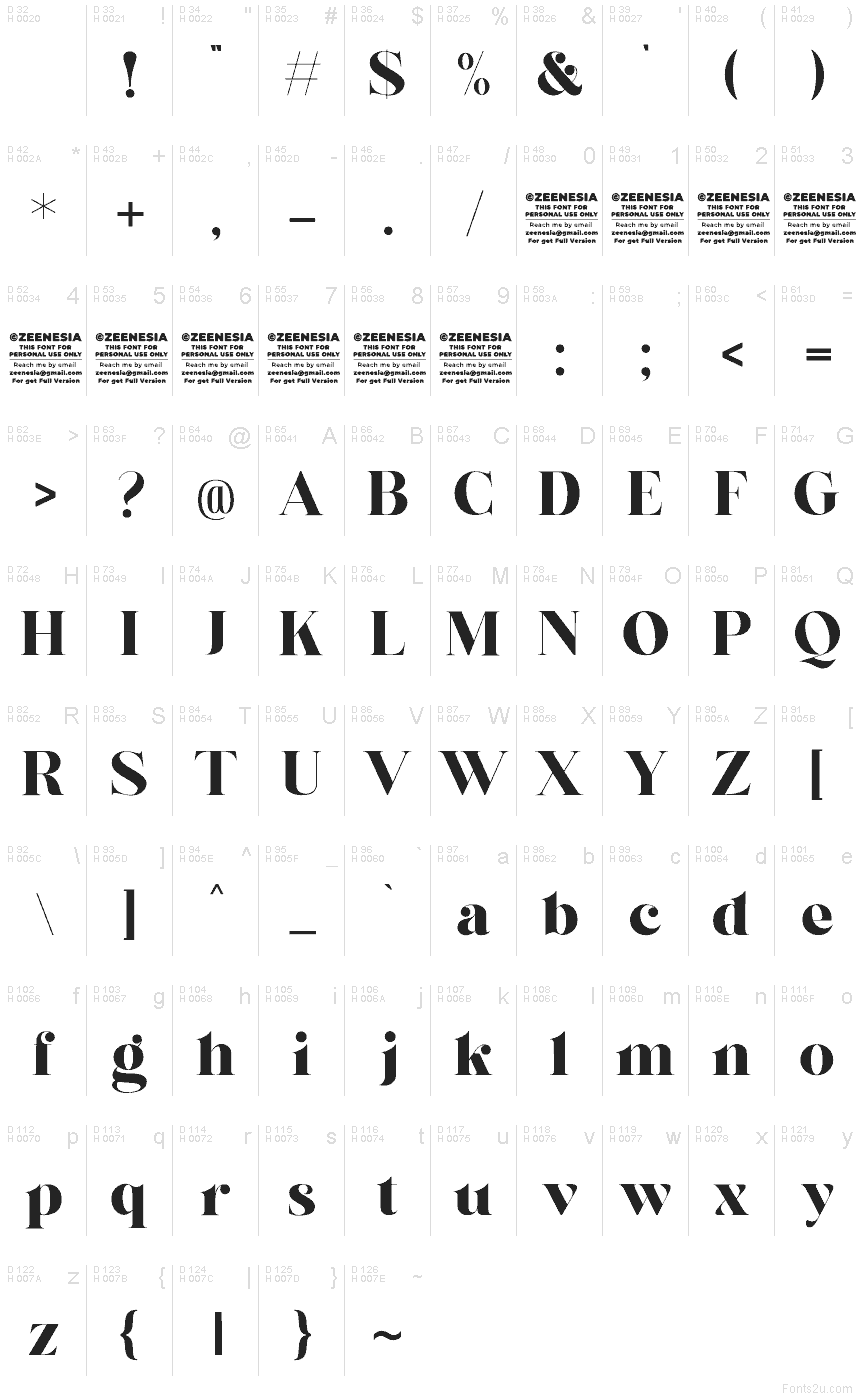
Glinka Personal Use Only
Glinka font by Zeenesia Studio is a bold serif font that features a uniquely elegant design. With classic elements, it ravishes the audience with its sophisticated appearance, and viewers cannot but be engaged by its authoritative presence. Each tool of the typeface was built to properly reflect what’s being presented, while still standing out on its own.
Whatever you use this free font for—branding designs/letters/logos, headlines and sub-headlines for magazines or newspapers, flyers or brochures, digital posts and covers, invitations for weddings or other classic events—it offers an aesthetic experience that lingers long after reading.